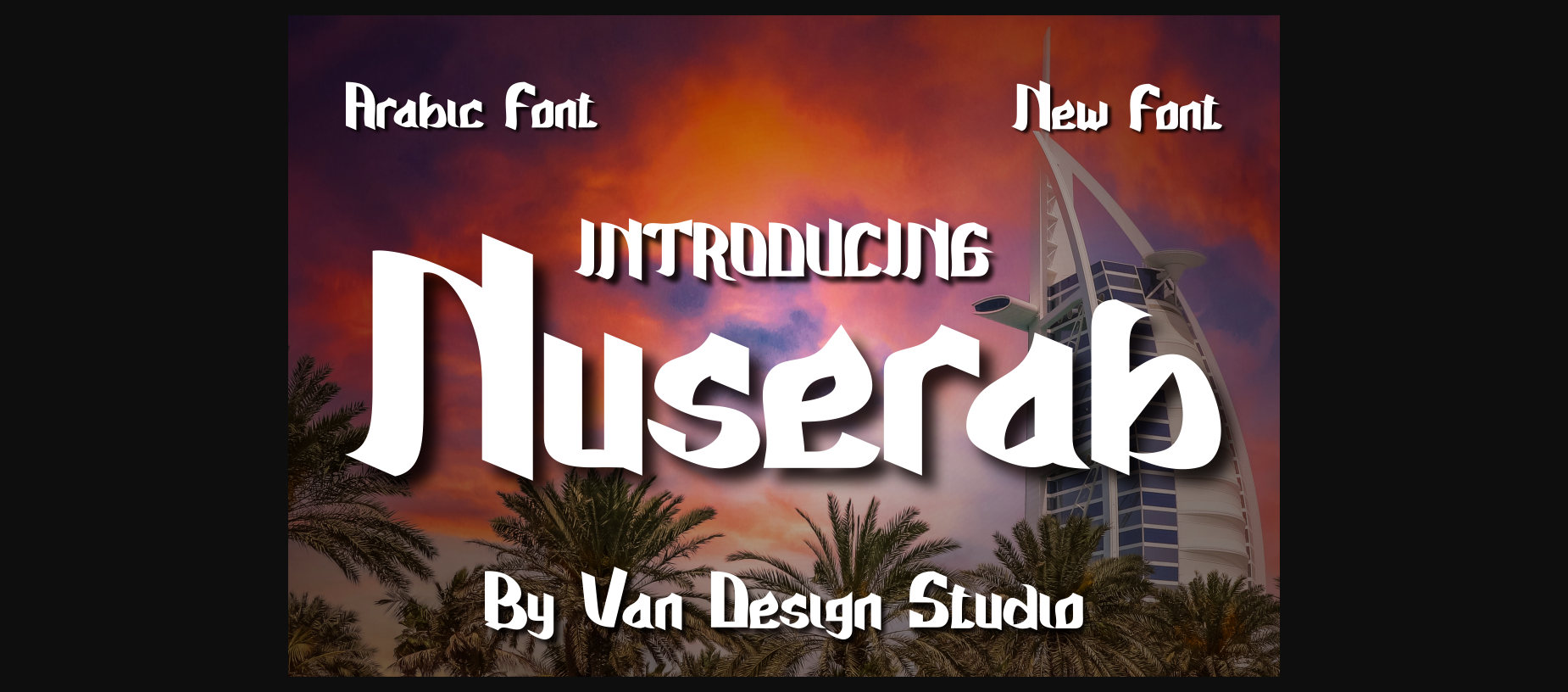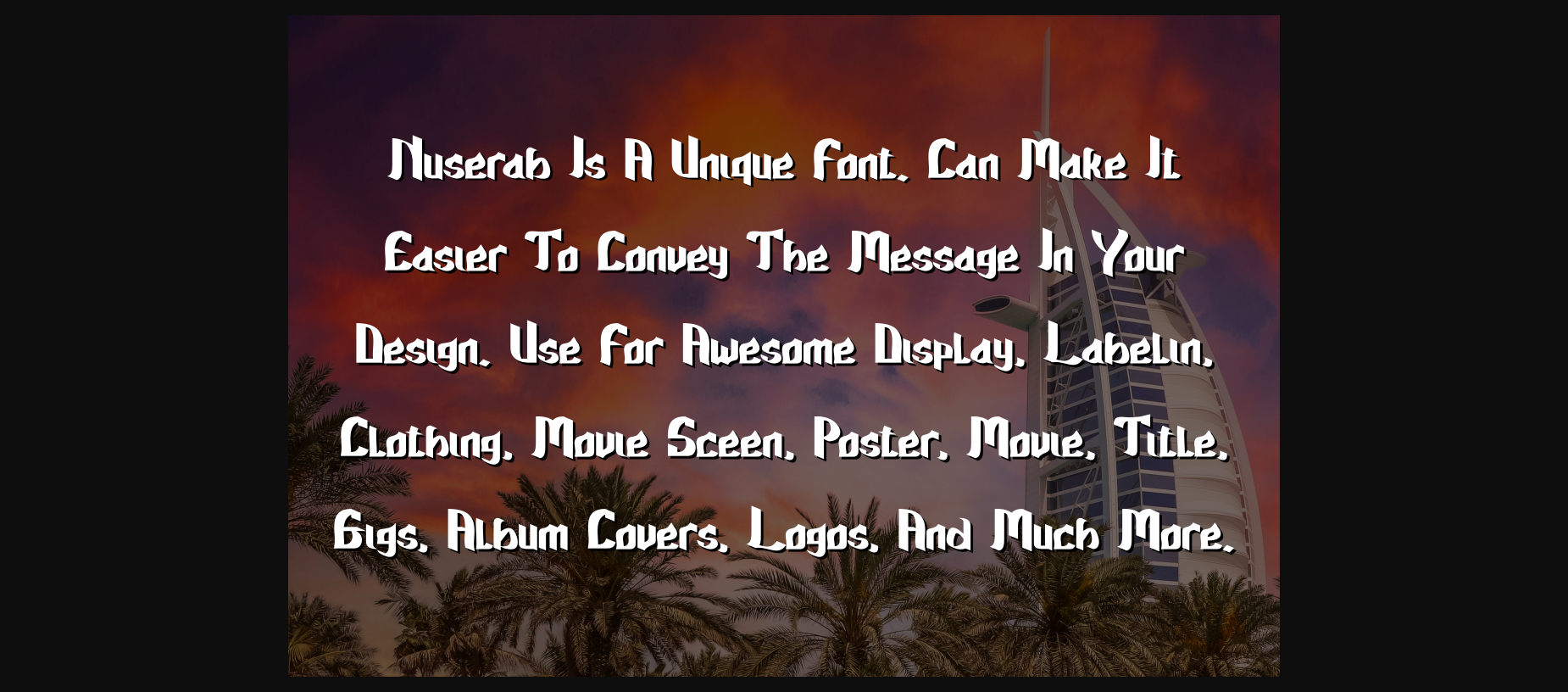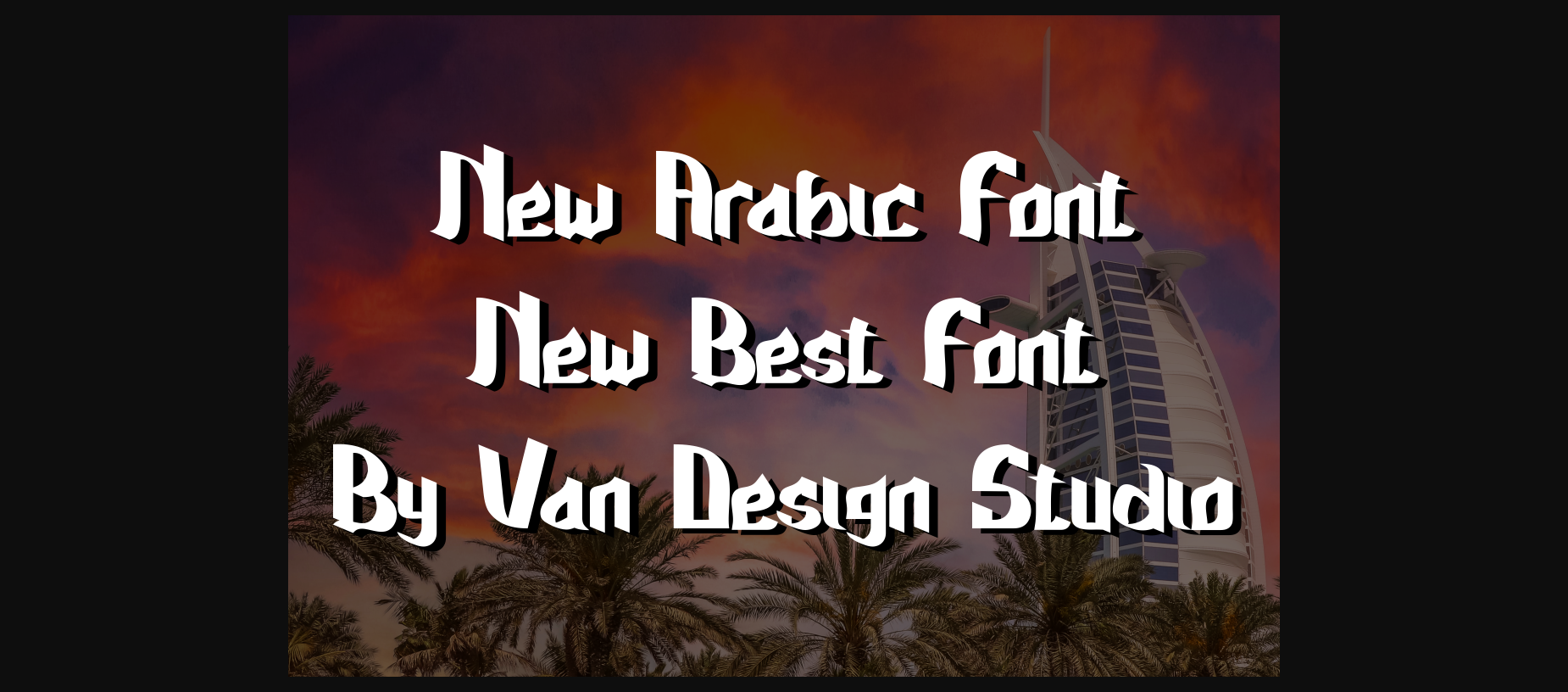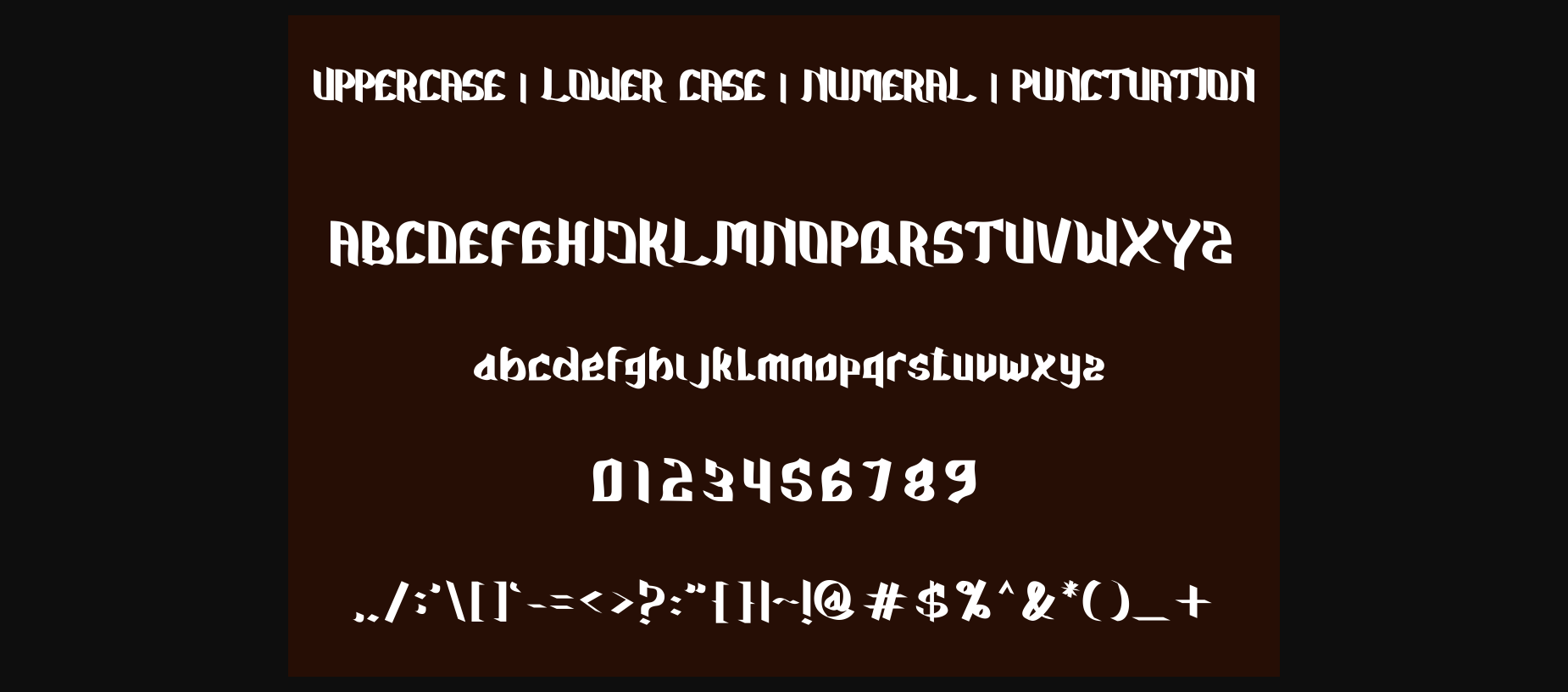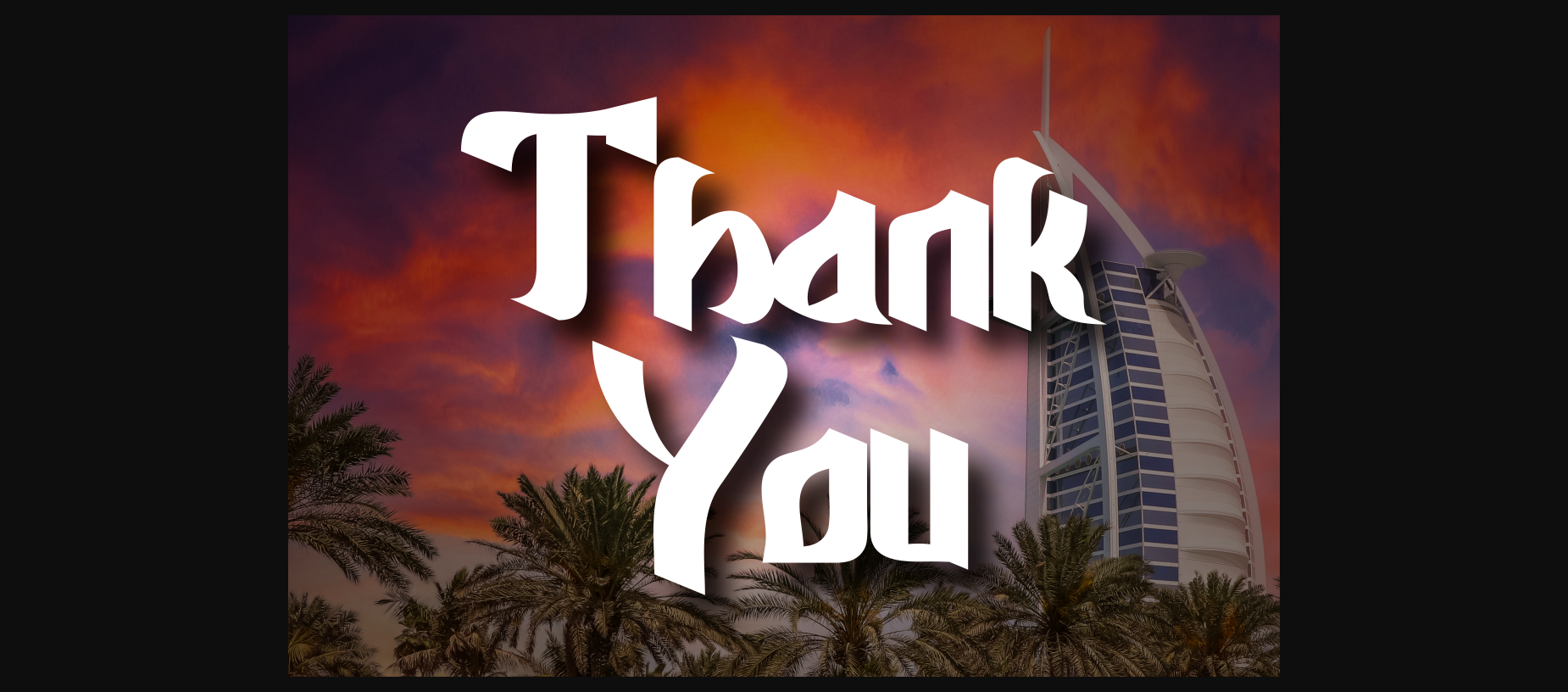
Nuserab Font
About Nuserab Font
Nuserab is a unique font. Can make it easier to convey the message in your design.
– Uppercase & lowercase letters
– Numbers & punctuation